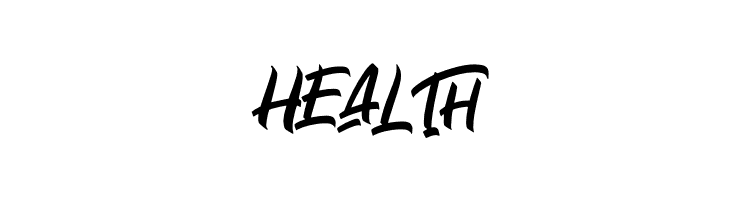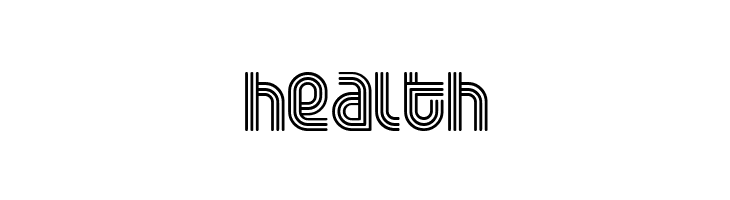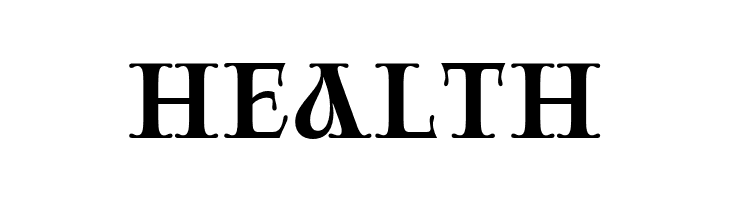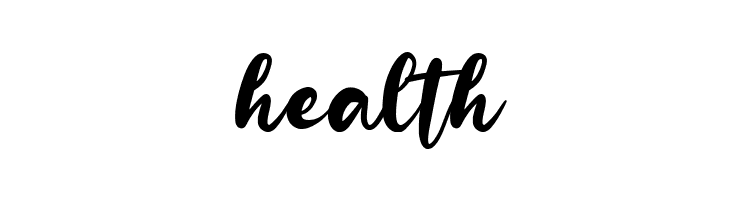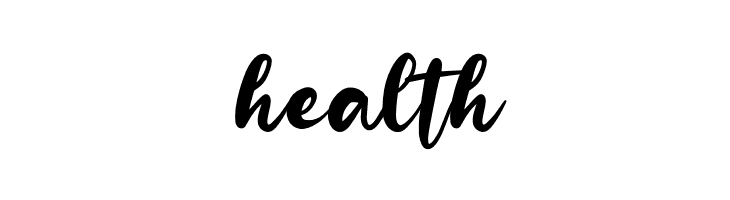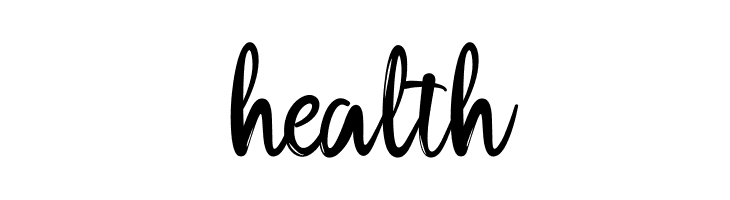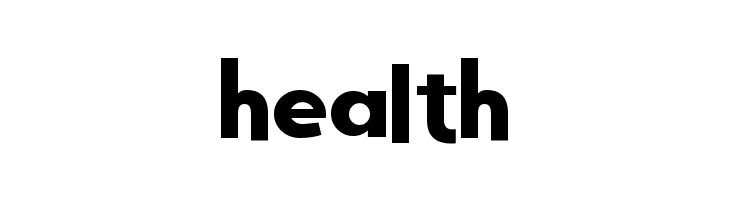
A playful, bold script font with a handwritten style and decorative loops.
A bold, cursive handwritten font with dynamic and expressive strokes.
A bold, brush script font with dynamic, fluid strokes and a modern, edgy aesthetic.
A bold, dramatic serif font with a classic and vintage feel.
A bold, expressive script font with a handwritten style.
A bold, expressive handwritten font with fluid strokes and dynamic energy.
A bold, decorative font with intricate details and high contrast.
A bold, shadowed font with a gothic flair and strong visual impact.
A decorative, geometric font with parallel lines creating a modern, rhythmic look.
A dynamic and expressive handwritten font with fluid, cursive strokes.